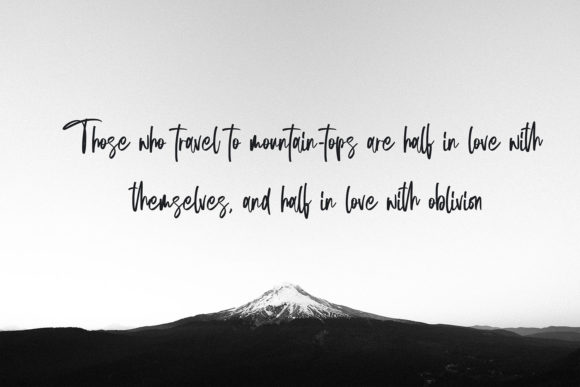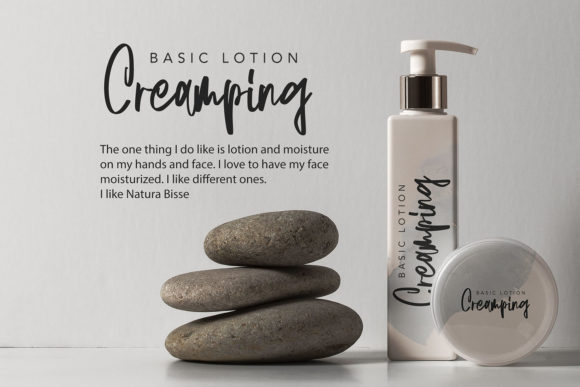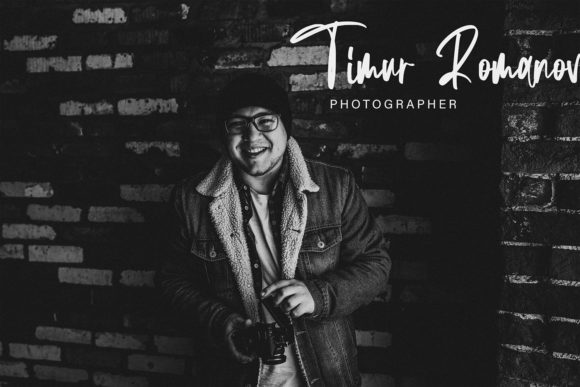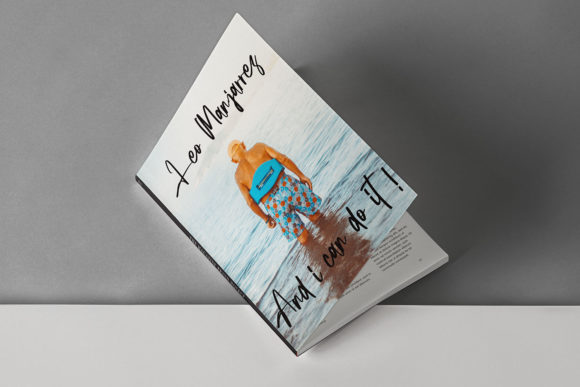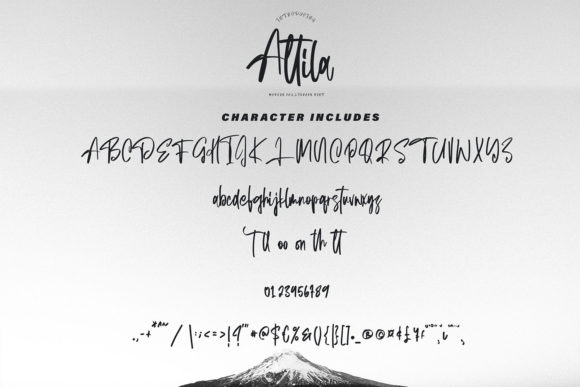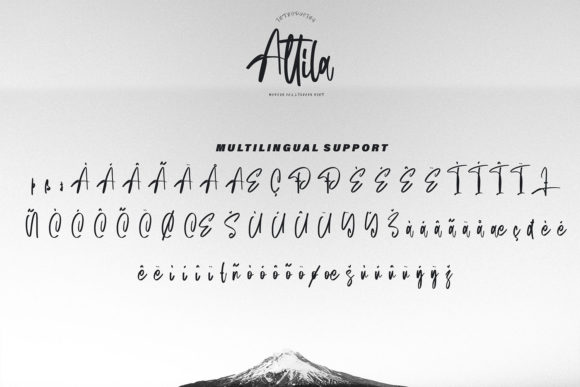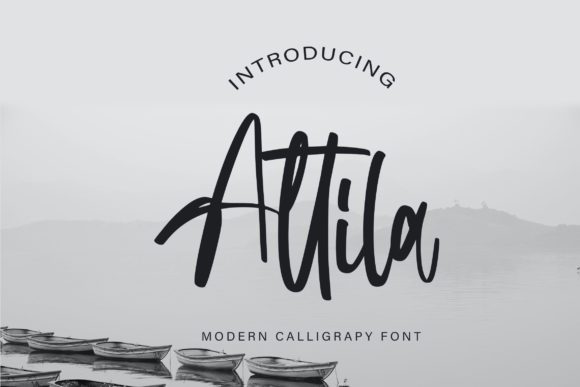
The Designer’s Delight: A Deep Dive into the Attila Font
I’ll never forget the design project that led me to discover the Attila font. I was working on a branding campaign for a trendy new coffee shop, and I was struggling to find the perfect font to capture their laid-back, yet sophisticated vibe. That’s when I stumbled upon Attila, and it quickly became my go-to font for the project. In this article, I’ll share my love for Attila, its features, and how to make the most of it in your designs.
An Honest Review of Attila Font
What I Love About Attila ✨
- ✅ Unique yet Readable: Attila’s handwritten style is both casual and elegant, making it perfect for a wide range of design projects.
- ✅ Versatile: Whether you’re designing a busy background or a standalone headline, Attila looks outstanding and adapts seamlessly.
- ✅ Modern and Fresh: Attila’s modern take on handwritten fonts makes it a great choice for designers looking for something new and exciting.
- ✅ Easy to Read: Despite its casual charm, Attila remains highly readable, even in smaller sizes.
- ⚠️ Limited Formality: Attila’s casual nature might not make it the best fit for very formal or traditional designs.
- ⚠️ Overuse of Swashes: While Attila’s swashes are beautiful, overusing them can make the text harder to read.
A Practical Guide to Using Attila Font
- Experiment with OpenType features like swashes and stylistic alternates to add flair to your text.
- Dive into the Glyphs panel to explore and insert unique glyphs and stylistic alternates.
The Story Behind Attila Font
Attila was crafted with love by a team of designers who aimed to create a font that feels both modern and approachable. Inspired by everyday handwriting, Attila brings a personal touch to any design project. The design team wanted to create a font that would be easy to read and versatile enough to use in various contexts, from digital media to print materials.
Q: Is Attila suitable for body text?
A: While Attila is highly readable, it’s best used for headings and short paragraphs. For longer body text, consider pairing it with a more traditional sans-serif or serif font.
Q: Does Attila support multiple languages?
A: Attila supports a range of languages, but it’s essential to check the specific character set to ensure it covers your language needs.